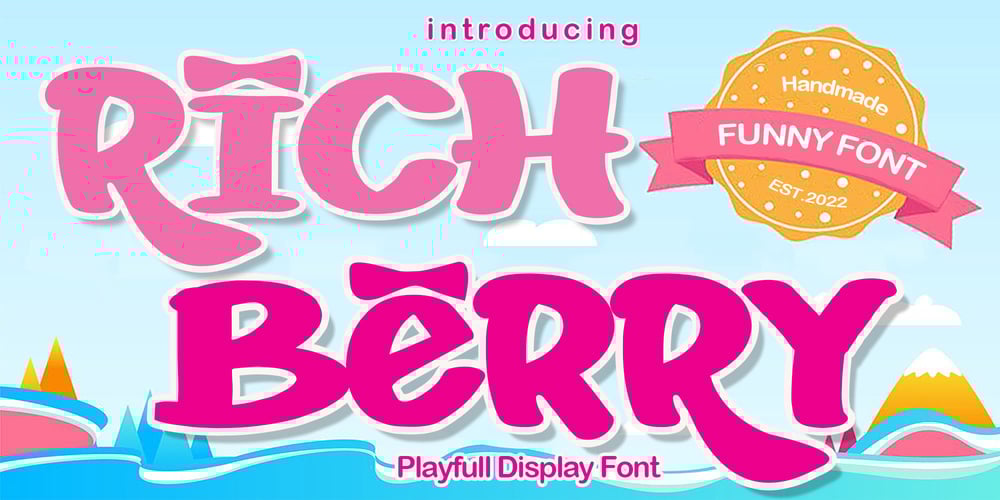
Rich Berry Font Family was designed by Rizki Kurniawan and published by Brothergrounds Studio. Rich Berry contains 1 styles and family package options. Rich Berry is a Playful Display Font that will make your designs look modern, unique and fun with alternate glyphs.It’s perfect for labels, quotes, posters, DIY projects, branding, packaging, greeting cards, websites, photography overlays, signs, window art, scrapbooking, tags and so much more!What’s Included :+ Standard glyphs+ Alternative glyphs+ Web Font+ Works on PC & Mac+ Simple installations\Accessible in the Adobe Illustrator, Adobe Photoshop, Adobe InDesign, even work on Microsoft Word.PUA Encoded Characters – Fully accessible without additional design software.Fonts include multilingual support+ Image used : All photographs/pictures/vector used in the preview are not included, they are intended for illustration purpose only.Thank You